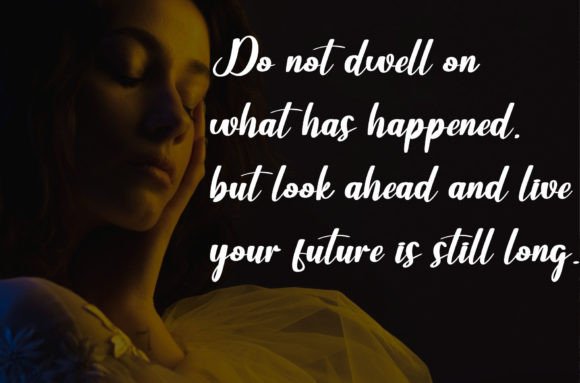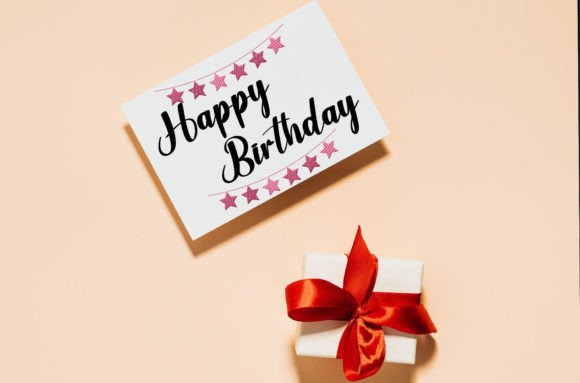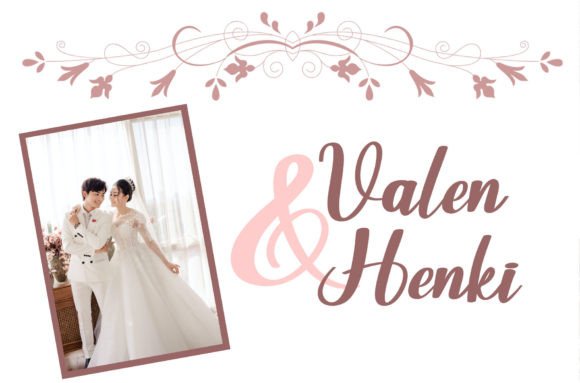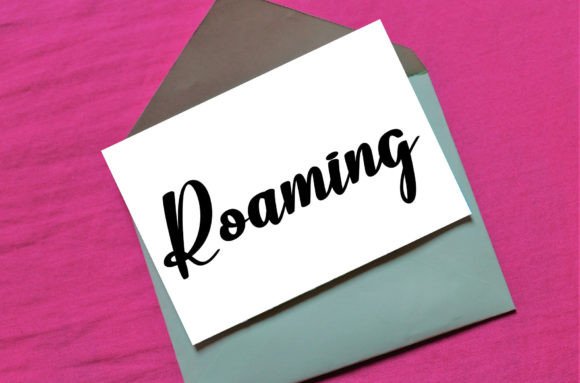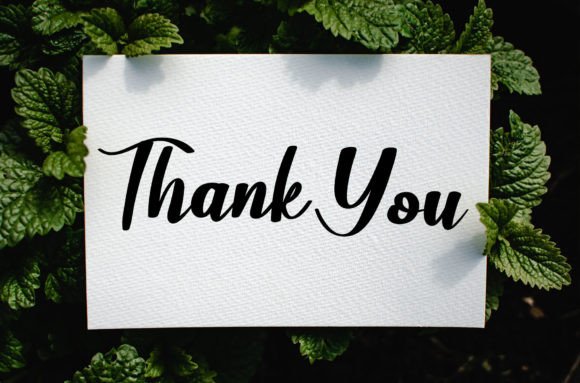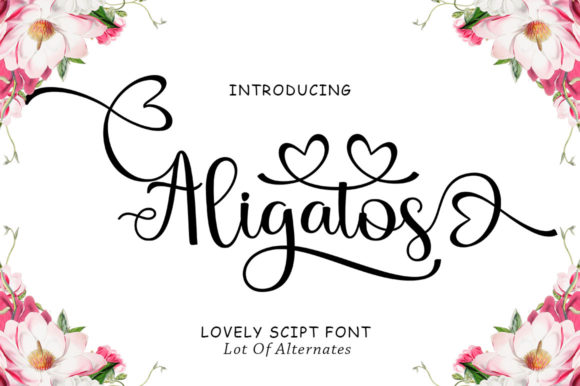
Christmas Font
Christmas is a modern and flowing handwritten font. It features varied bases, smooth lines, gorgeous glyphs, and stunning alternatives. Fall in love with its incredibly versatile style and use it to create spectacular designs!